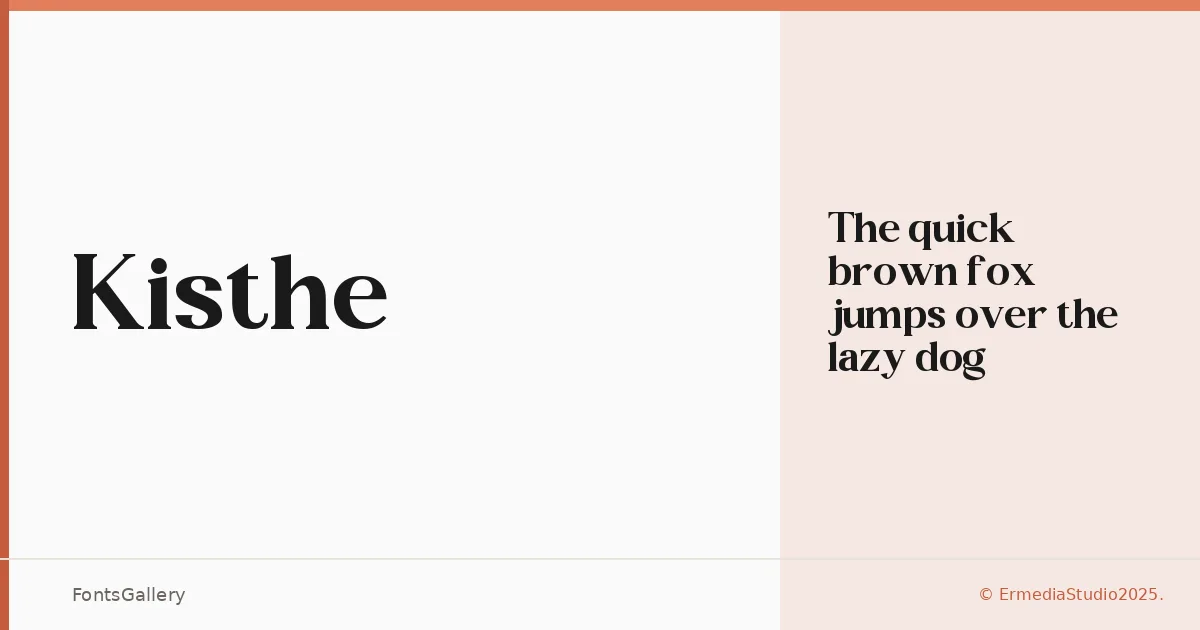
About Kisthe Font
There is a deliberate composure to these serifs — the kind that signals craft before a reader processes a single word. Kisthe is a single-cut serif released by ErmediaStudio2025, available in one style: SemiBold Regular. It was built using FontCreator 11 from High-Logic.com, and its Latin coverage carries the controlled weight you expect from a face designed to command a page rather than fill one.
The mood sits at the intersection of classic elegance and restrained modernity — a luxury register without ornamental excess. The SemiBold Regular weight occupies a useful middle ground: sturdy enough to anchor a headline, refined enough not to feel heavy in a logo lockup. Delivered as an OTF file, it sets cleanly and holds detail at display sizes where the serif construction does most of its work.
This is a face for book covers, magazine headlines, branding systems, and logo marks where Latin-script elegance is the brief. It earns its place anywhere a single weight needs to carry the full tonal load. For pairing, the neutrality of Helvetica or Asap makes a reliable counterpoint, while Armelie, Etna, and Kactigona each offer contrasting textures that can extend a design system without competing for attention.